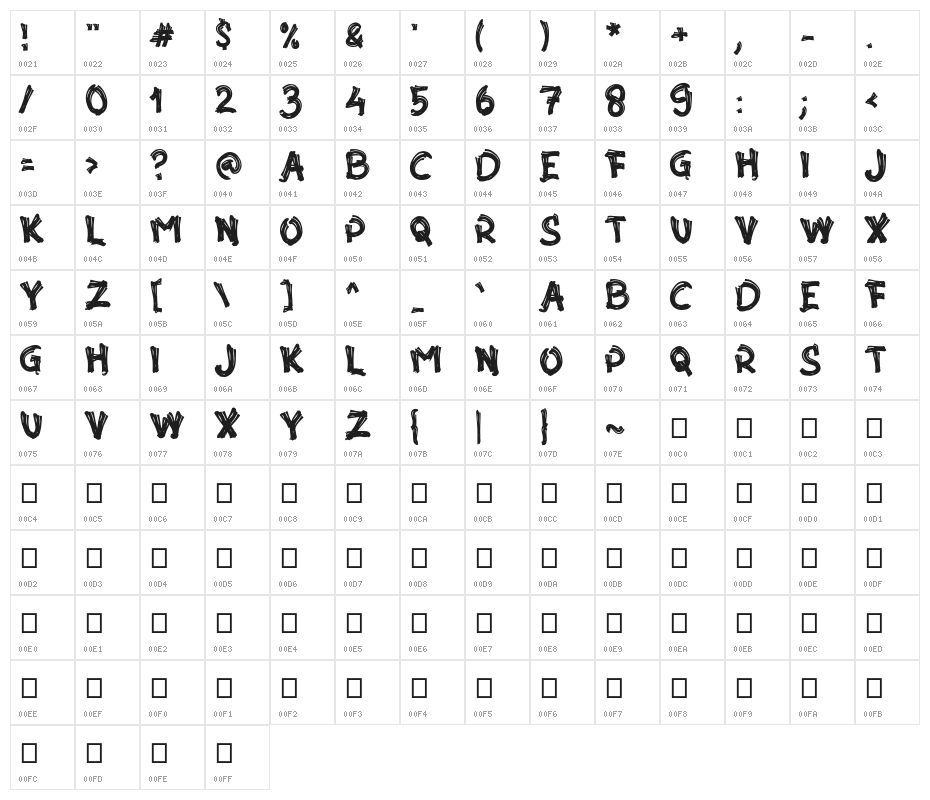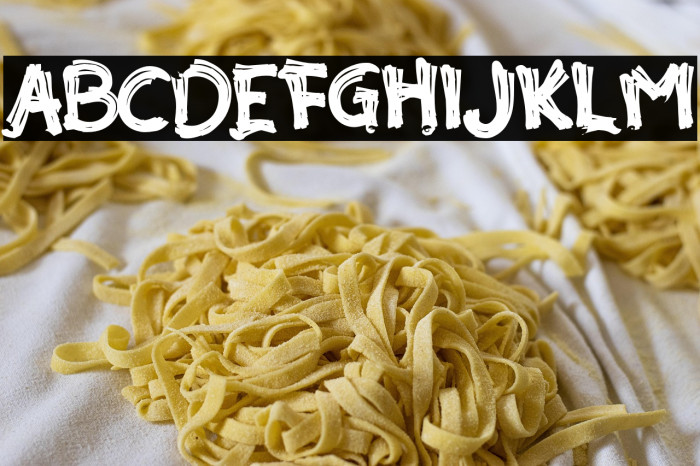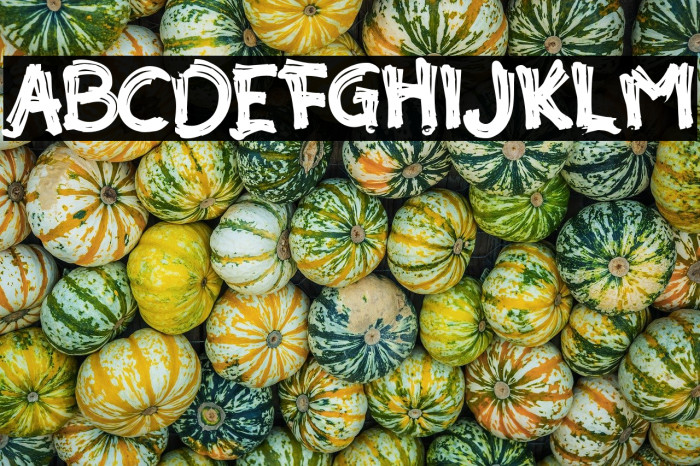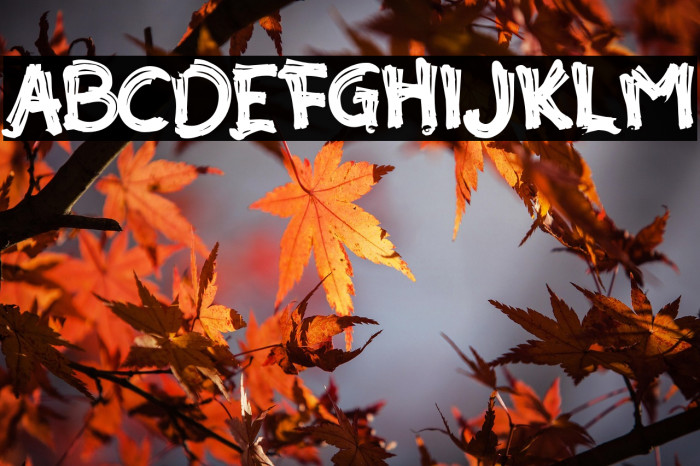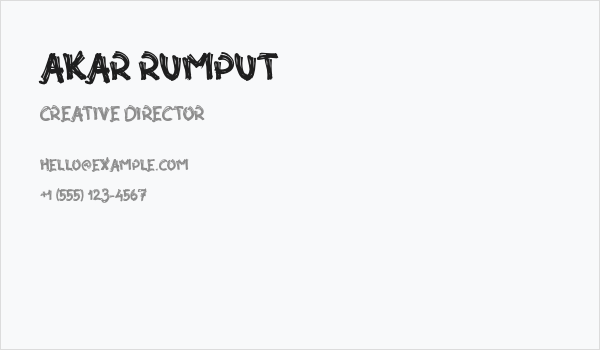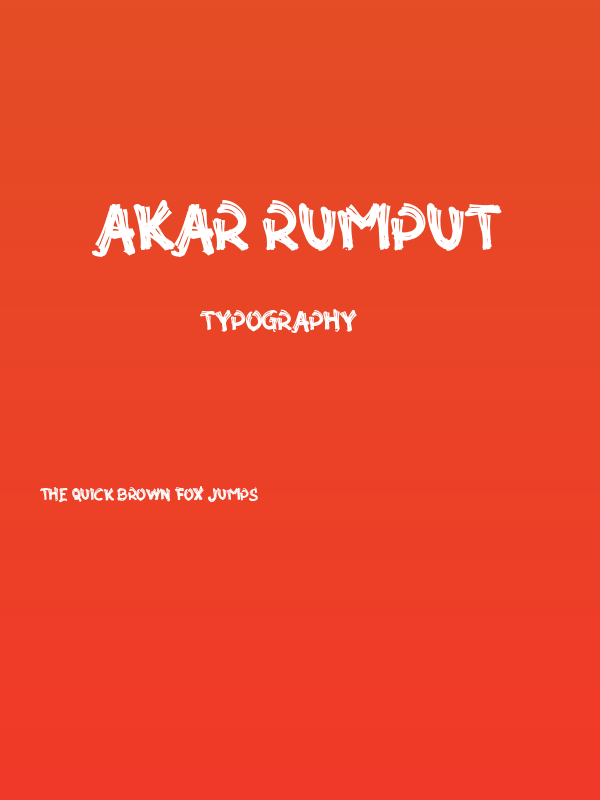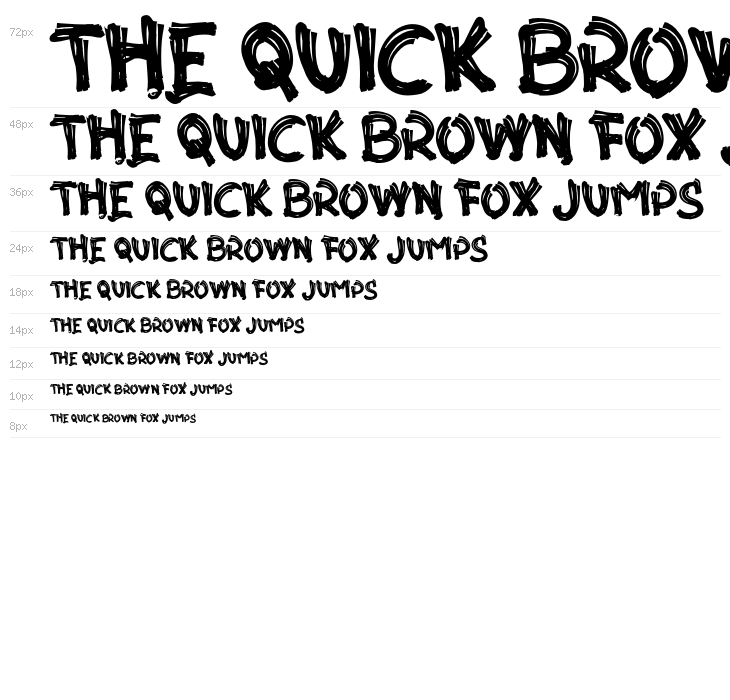
Akar Rumput Font
Akar Rumput Description
This font features a bold and expressive style with a hand-drawn appearance. The characters are thick and have a brush-like texture, giving them a dynamic and energetic feel. The strokes are uneven, adding to the casual and artistic vibe. Each letter has a unique flair, with some characters showing slight variations in size and shape, enhancing the organic look. The font includes both uppercase and lowercase letters, numbers, and a variety of special characters, making it versatile for creative projects.
| Proposed Projects | Ideal for posters, artistic designs, branding, and any project requiring a bold, creative touch. |